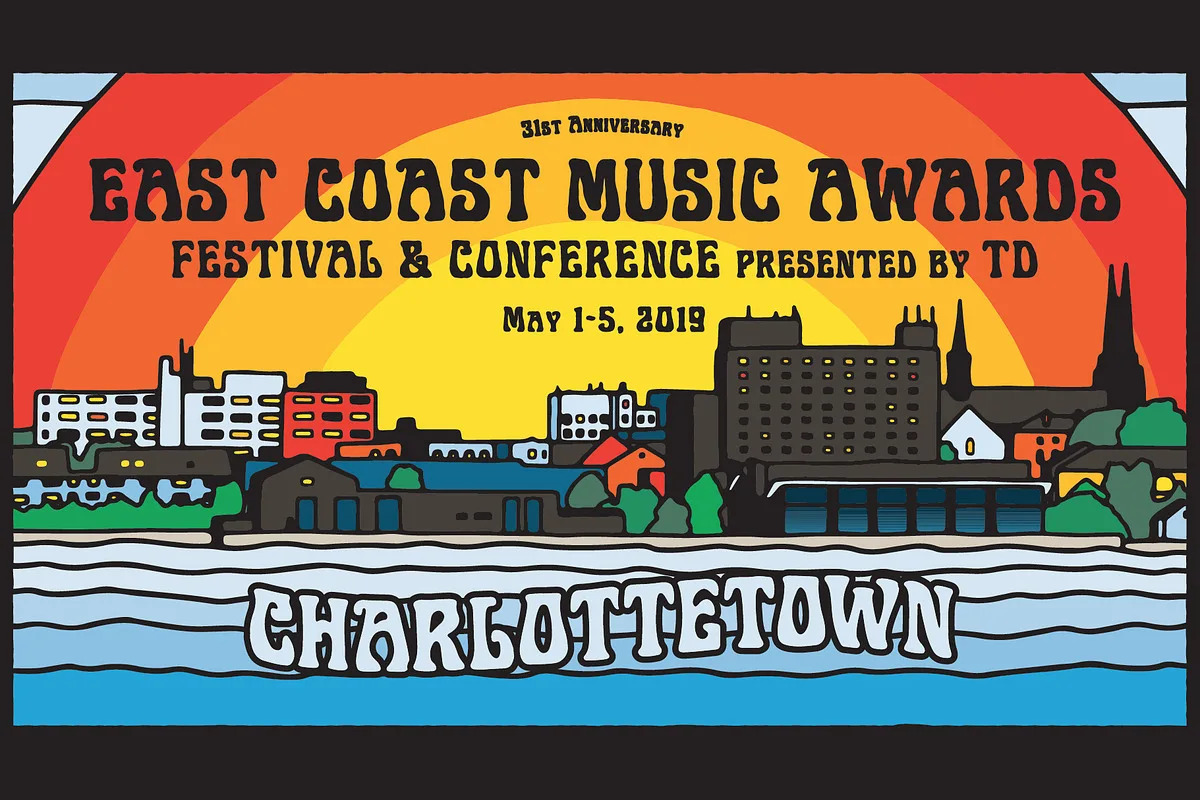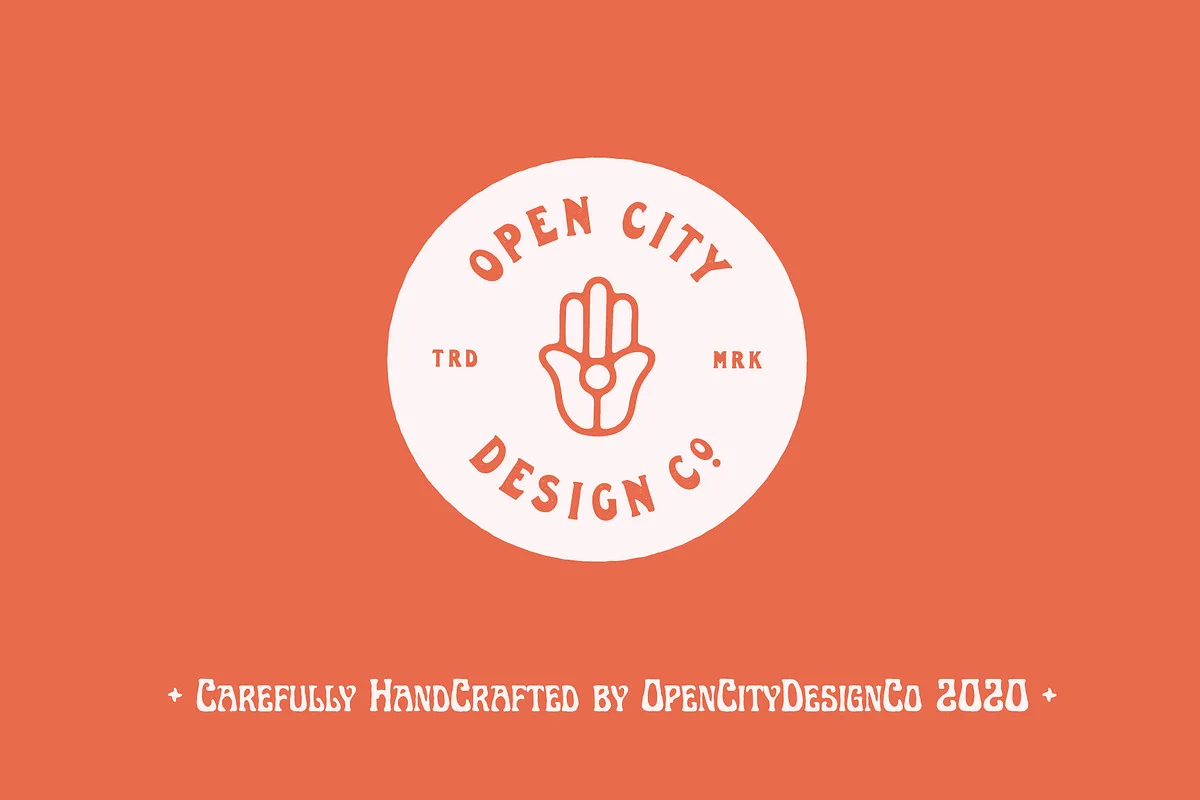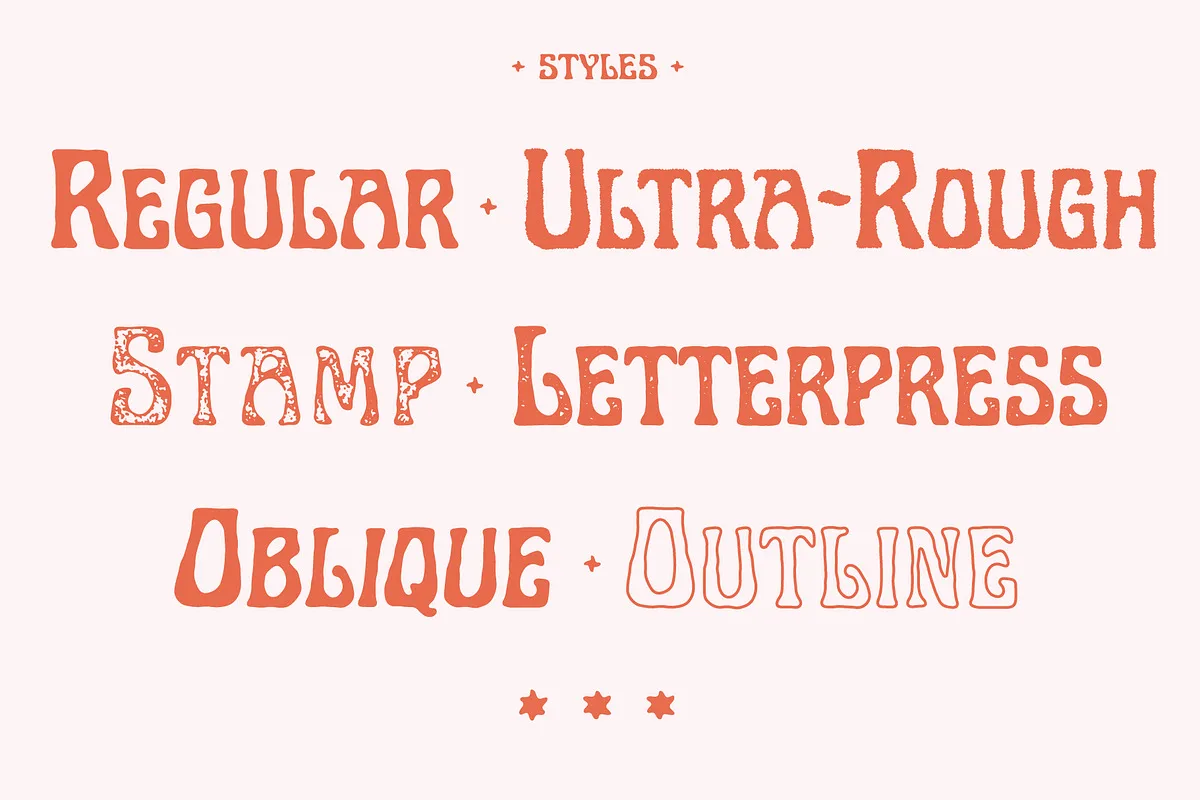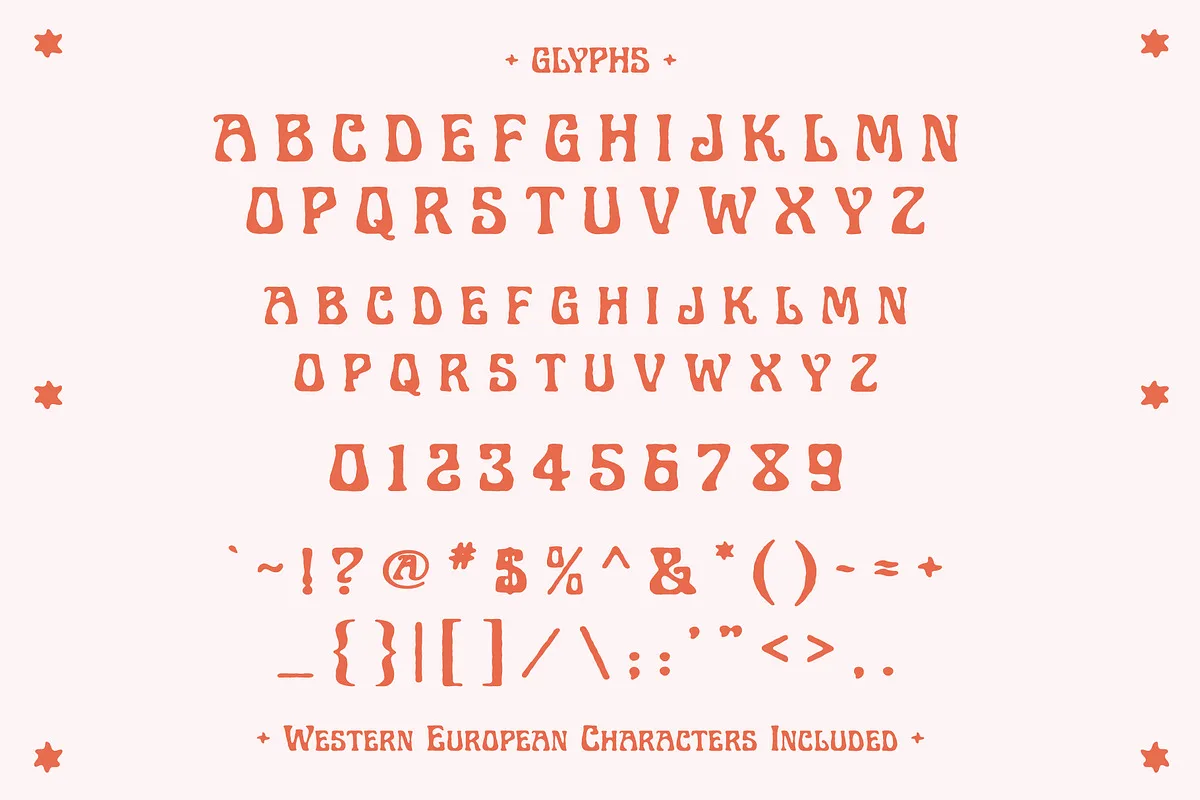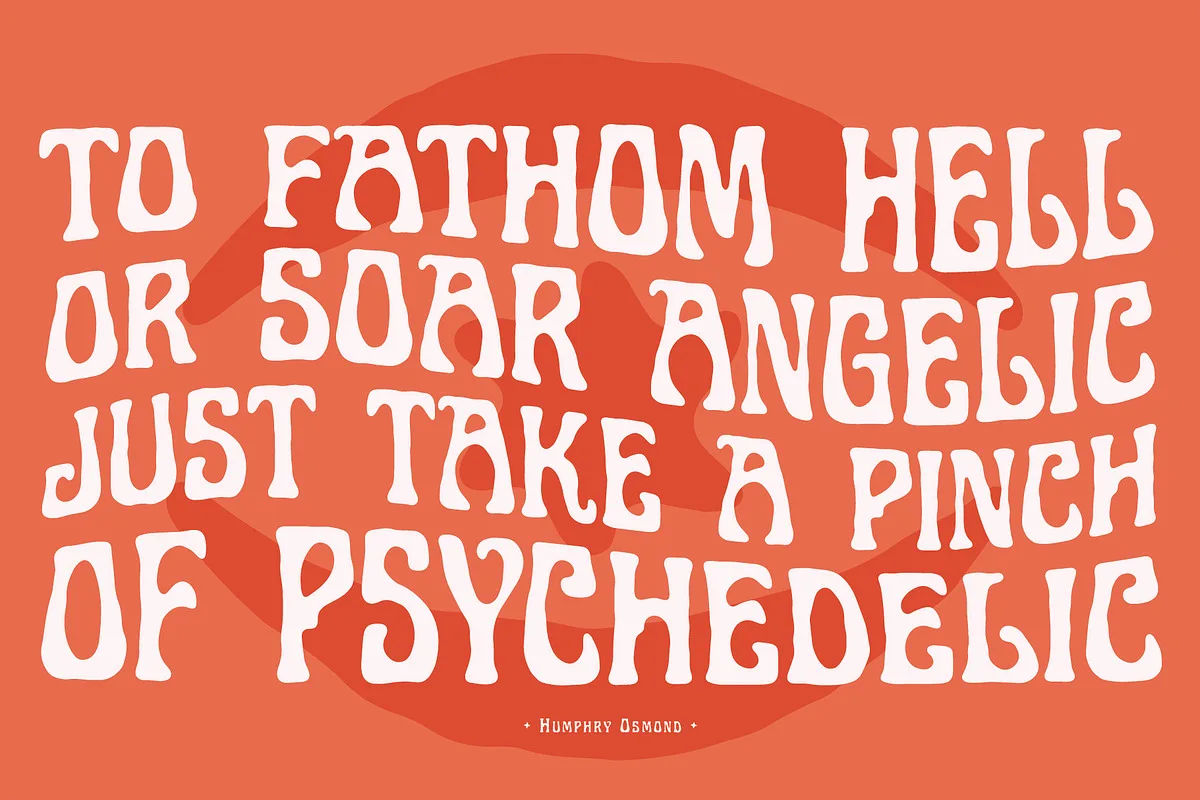
Art-Nuvo is a hand-drawn psychedelic font family that comes in 6 carefully crafted styles. It is great for music artwork and trippy/experimental themes. The font includes uppercase, small caps, numbers & punctuation, and western European characters.